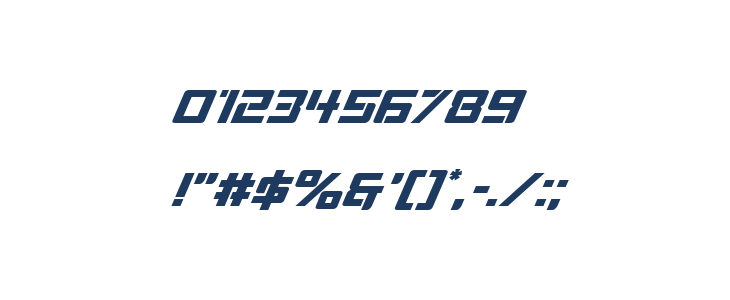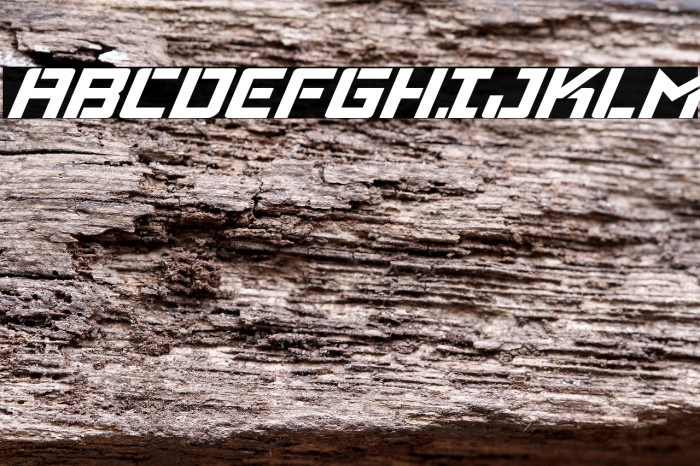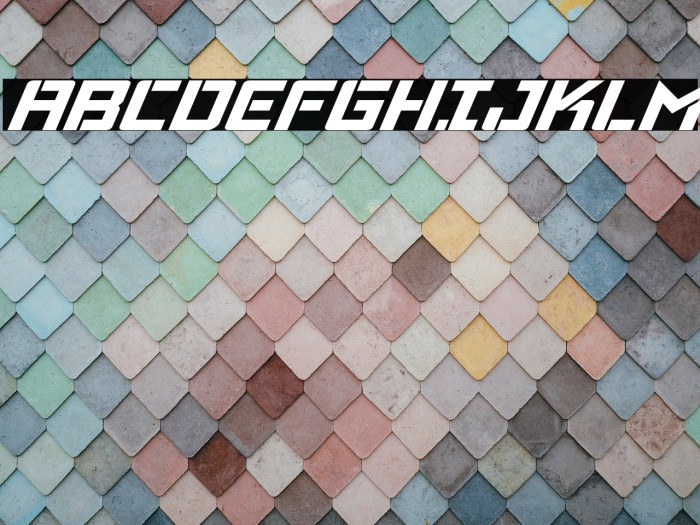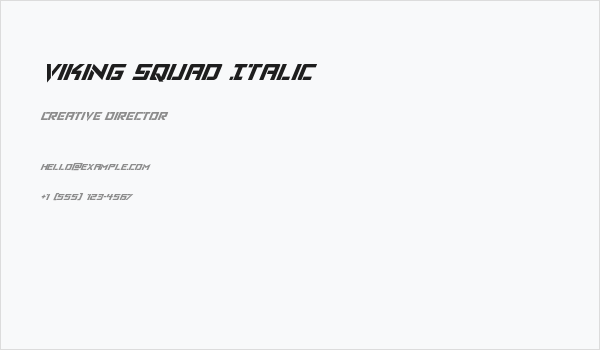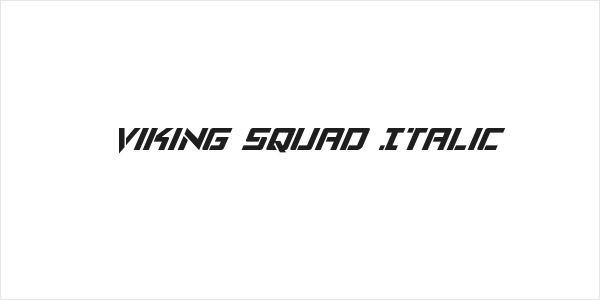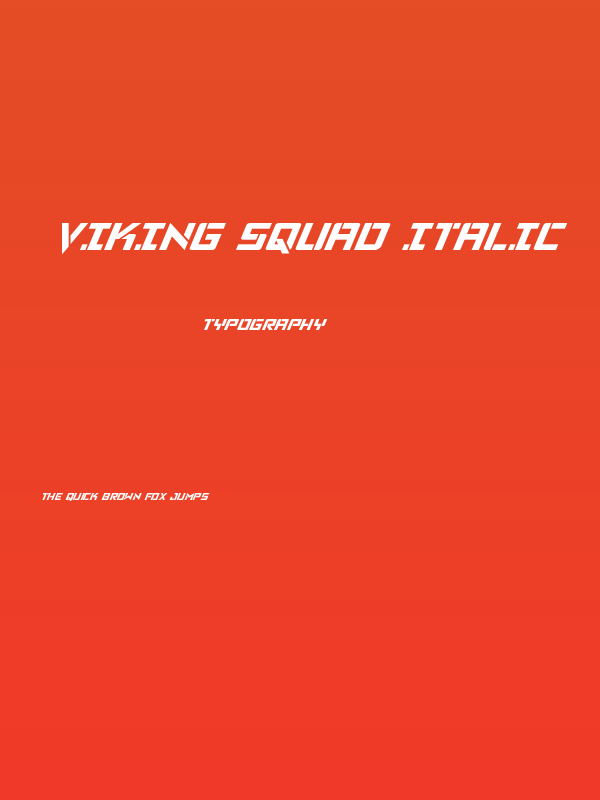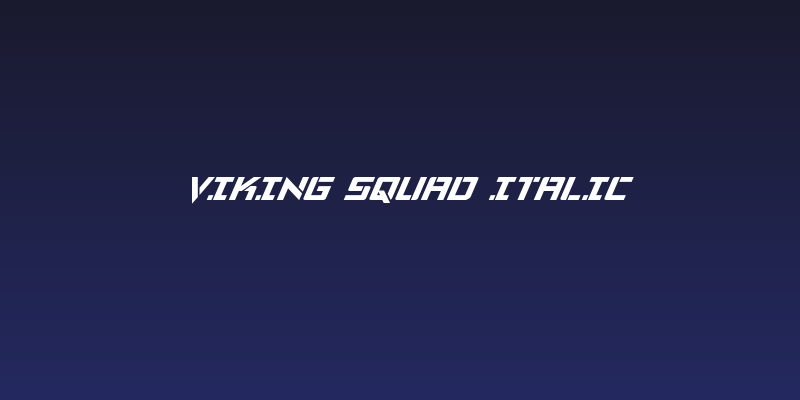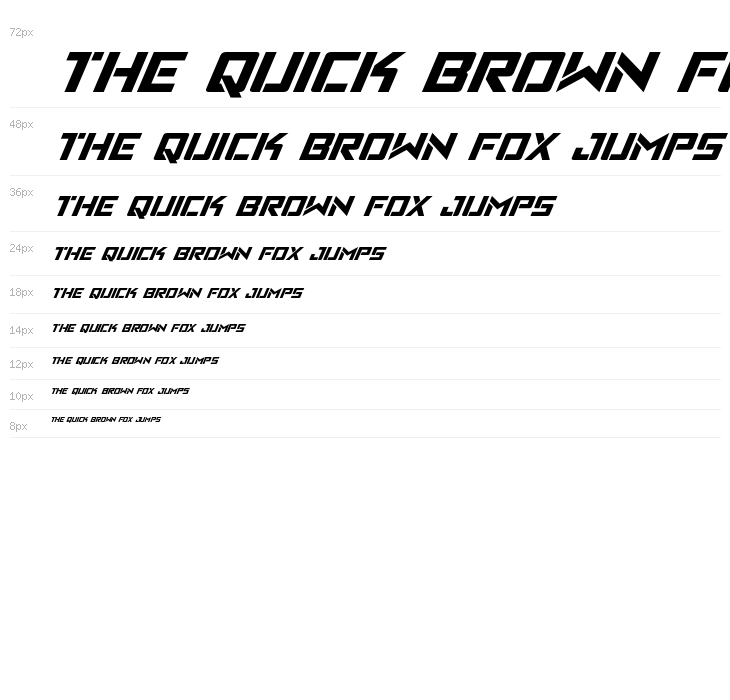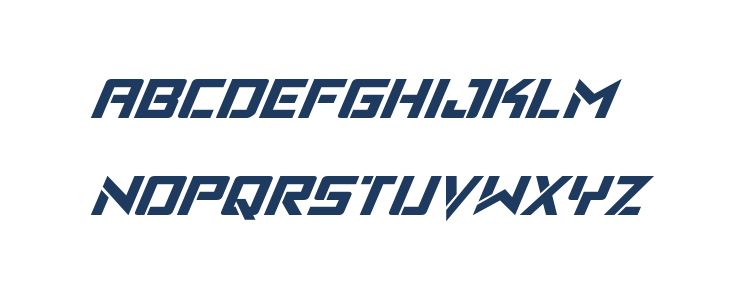
Viking Squad Italic Font
Viking Squad Italic Description
This font features a bold, italicized style with a strong, angular design. The characters are sharply defined, with a futuristic and dynamic appearance. The uppercase and lowercase letters maintain a consistent slant, enhancing the italic effect. The numbers and special characters follow the same angular and bold design, ensuring uniformity across all glyphs. This font's distinct style makes it stand out, with a modern and edgy vibe that is both eye-catching and versatile.
| Proposed Projects | Ideal for video game titles, sci-fi movie posters, sports branding, and dynamic logo designs. |